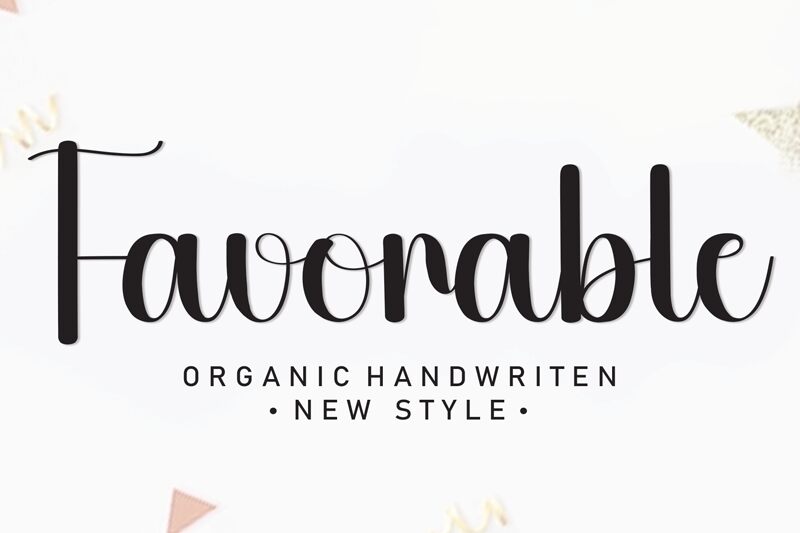
Favorable
Favorable font, designed by Scratchones, exudes a charming handwritten style that brings warmth and personality to any design. Its playful curves and fluid strokes create a sense of spontaneity, making it feel both personal and inviting. The font's unique character lies in its dynamic letterforms; some letters dance joyfully while others provide a grounded touch, all contributing to its overall whimsical appeal.
Ideal for invitations, branding projects, or any context where a touch of creativity is desired, Favorable seamlessly complements themes of friendliness and approachability. Whether used in digital formats or print materials, this font strikes the perfect balance between elegance and informality—inviting viewers to engage more deeply with the message it conveys.